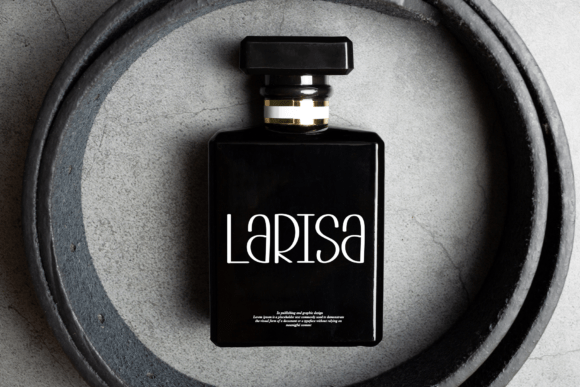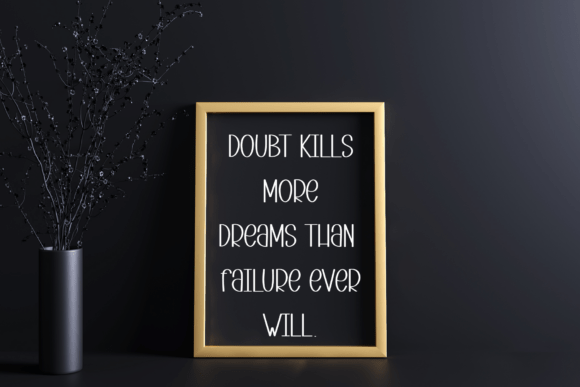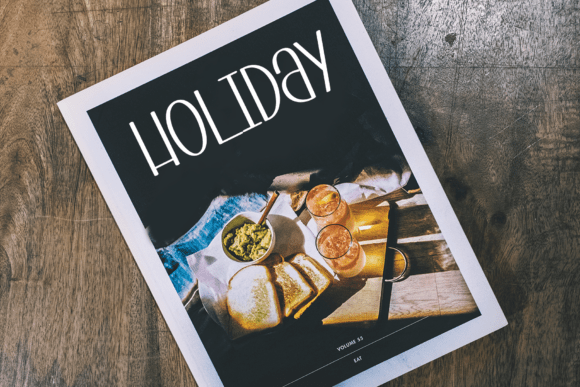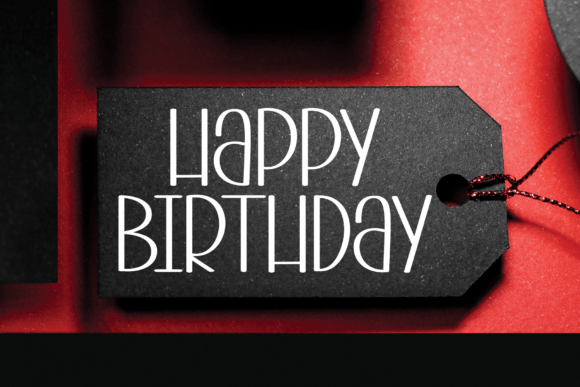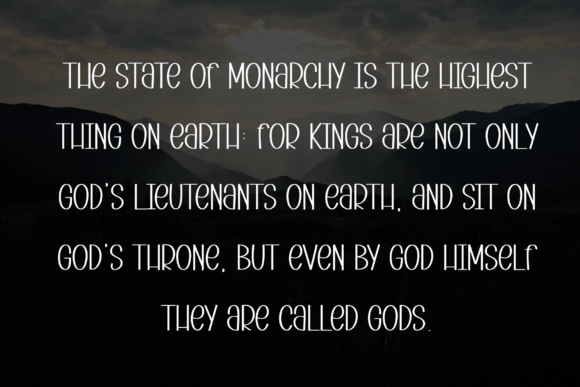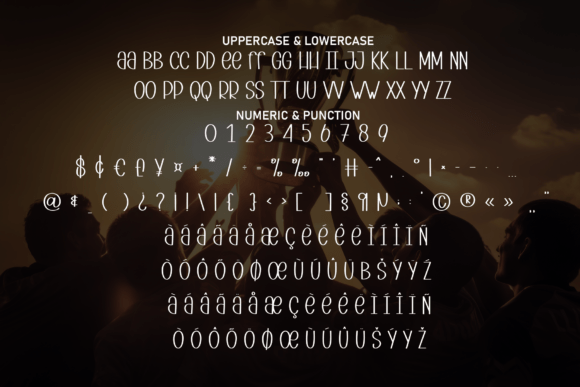
Introducing Champions Font: The Perfect Blend of Elegance and Whimsy
Are you tired of using the same old fonts for your design projects? Look no further! We’re thrilled to introduce Champions Font, a beautifully handcrafted display font that combines light-hearted playfulness with refined sophistication. This stunning font is perfect for designers and crafters seeking to add a touch of wonder to their work, whether it’s wedding invitations, greeting cards, or other design projects.
A Delightful Fusion of Elegance and Charm
Champions Font is infused with an irresistible blend of elegance and charm, making it the perfect choice for designs that require a touch of sophistication. The font’s hypnotic simplicity is balanced with pleasing contours, creating a magnetism that’s sure to win hearts and encourage smiles. Whether you’re designing a wedding invitation or a greeting card, Champions Font is sure to add a touch of magic to your work.
Bringing Celebrations to Life
Champions Font is more than just a font – it’s a way to bring every celebration to life with a bewitchingly pleasant undertone. Imagine being able to add a touch of whimsy and elegance to your designs, making them truly unforgettable. With Champions Font, you can create designs that are not only visually stunning but also emotionally resonant.
Champions Font is perfect for designers and crafters who want to add a touch of sophistication and elegance to their work. Whether you’re creating wedding invitations, greeting cards, or other design projects, this font is sure to impress. Its unique blend of playfulness and refinement makes it an excellent choice for a wide range of design applications.
Key Features of Champions Font
- Handcrafted with love: Champions Font is carefully crafted with attention to detail, ensuring that every letter and curve is perfect.
- Elegant and whimsical: This font combines elegance and whimsy, making it perfect for designs that require a touch of sophistication and playfulness.
- Perfect for celebrations: Champions Font is designed to bring celebrations to life, making it perfect for wedding invitations, greeting cards, and other design projects.
Why Choose Champions Font?
There are many fonts to choose from, but Champions Font stands out from the rest. Here are just a few reasons why:
In conclusion, Champions Font is a beautifully handcrafted display font that’s perfect for designers and crafters seeking to add a touch of elegance and whimsy to their work. With its unique blend of playfulness and refinement, this font is sure to win hearts and encourage smiles. Whether you’re designing a wedding invitation or a greeting card, Champions Font is the perfect choice. So why wait? Download Champions Font today and bring your designs to life with a bewitchingly pleasant undertone.